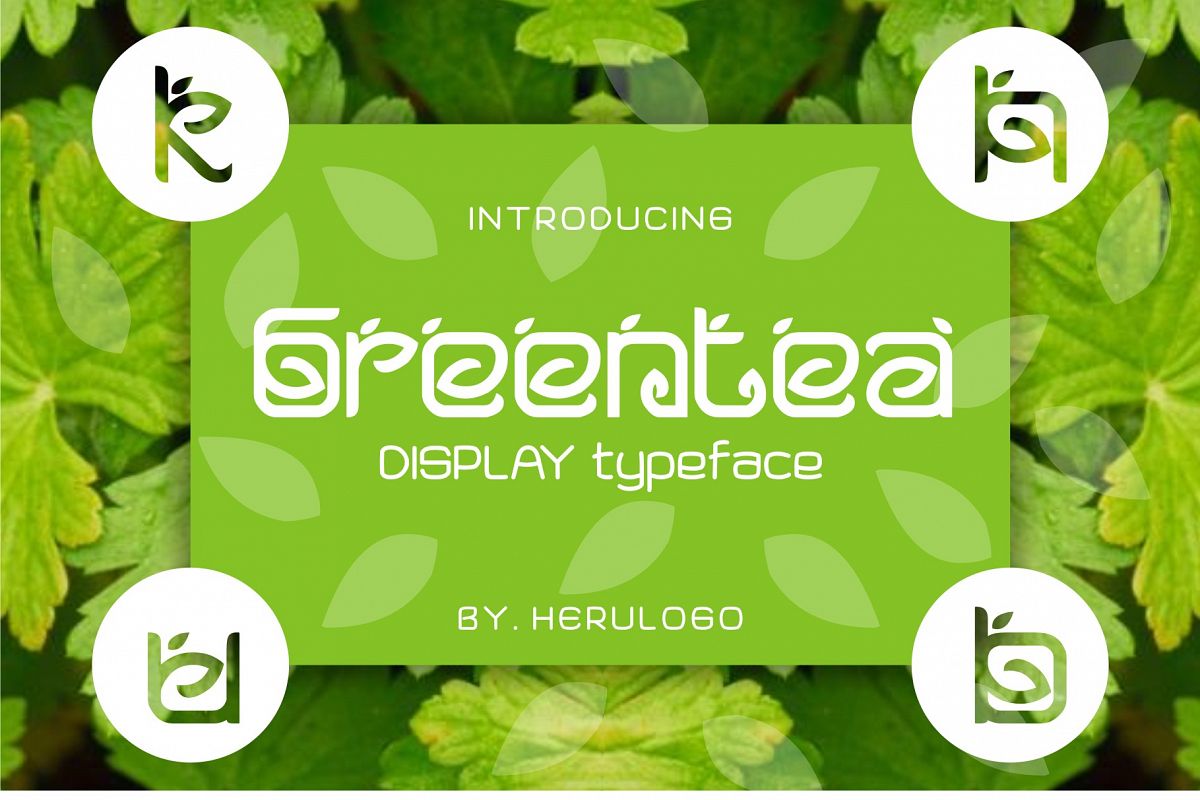
Created By HERULOGO
Greentea Logo Font
Greentea
Good combination simple leaf and typeface, very good typeface for healthy/gym or green drink company
Greentea Logo Font
By HERULOGO